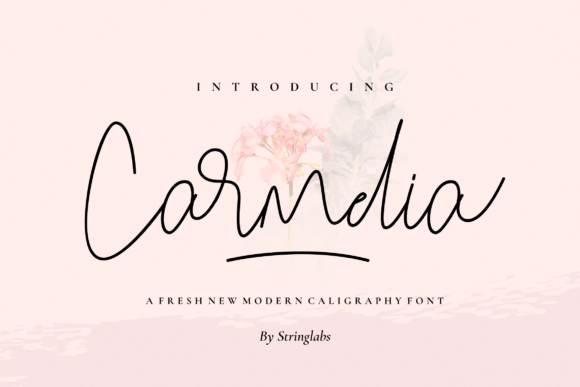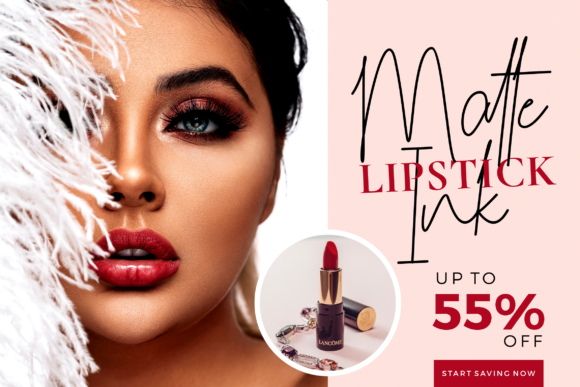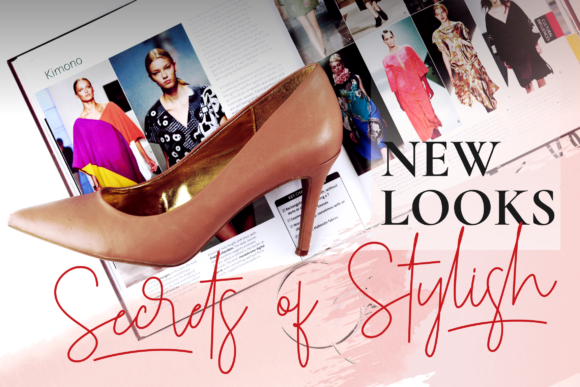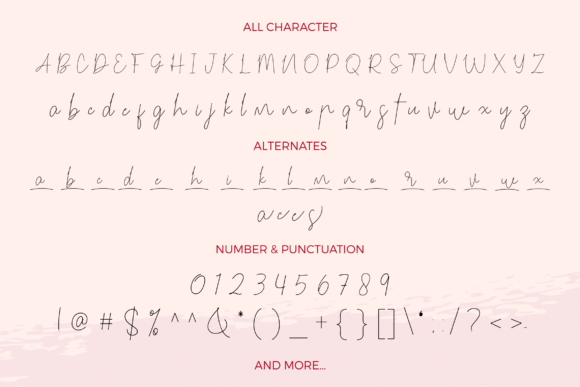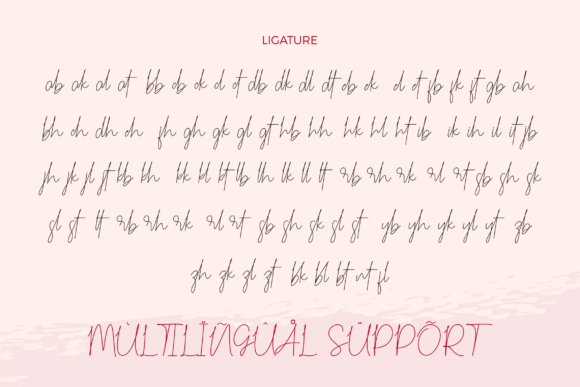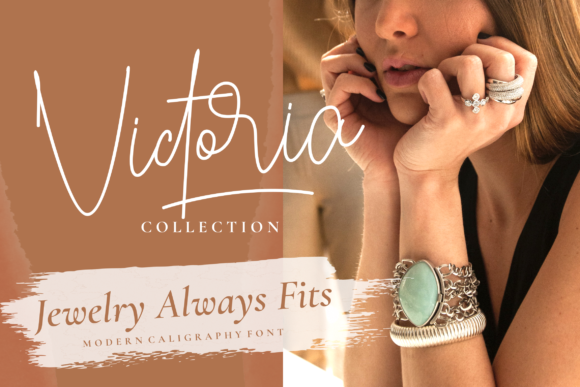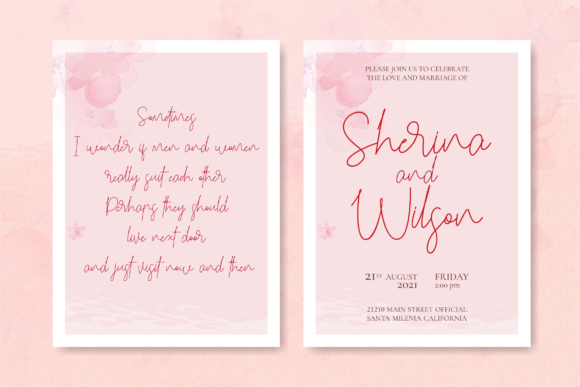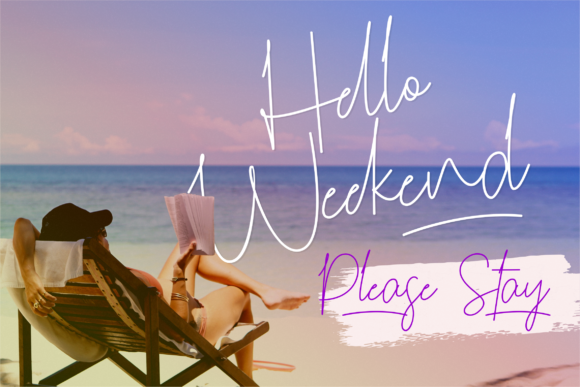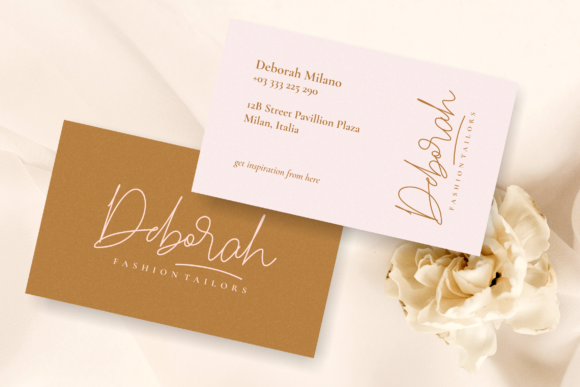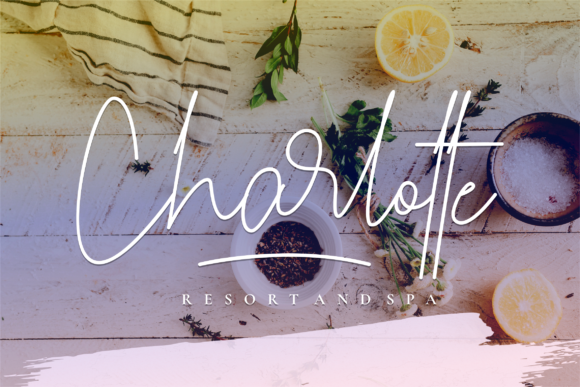
HomeScript FontsCarmelia Font Script Fonts Carmelia Font FacebookXPinterestWhatsApp Carmelia Font Poster 2 Carmelia Font Poster 3 Carmelia Font Poster 4 Carmelia Font Poster 5 Carmelia Font Poster 6 Carmelia Font Poster 7 Carmelia Font Poster 8 Carmelia Font Poster 9 Carmelia Font Poster 10 Carmelia Font Poster 11 Carmelia Font Poster 12 Carmelia Font Poster 13 Carmelia Font Poster 14 Carmelia Font Poster 15 About Carmelia Font Carmelia is a gorgeous script with a unique style. Fall in love with its modern approach to design! DOWNLOAD ON CREATIVE FABRICAThis font is sold and delivered by Creative Fabrica. Font Canyon may earn a commission if you buy through this link. People also explored Lucky Boys Font Calligraphia Latina Font Ruthfully Font Cappadocia Font Mocha Frappuccino Font Split Rose Flower Monogram Font Justine Garden Font Coconut Tree Font Agellia Benitta Font 376 0 TagsCarmelia Font Previous articleGalgadot FontNext articleGrouper Monster Font LEAVE A REPLY Cancel reply Comment: Please enter your comment! Name:* Please enter your name here Email:* You have entered an incorrect email address! Please enter your email address here Website: Save my name, email, and website in this browser for the next time I comment. Personal Use Free Autumn Flowers Font Personal Use Free Read more about this font Fake Receipt Personal Use Free Read more about this font Peristiwa Font Personal Use Free Read more about this font Glosery Personal Use Free Read more about this font BLOG The 10 Best Handwriting Fonts to Add Personality to Your Designs 10 of the Best Handwriting Fonts for Adding Personality to Your Designs There will undoubtedly be no other better choice than handwriting fonts to give... Modern Sans-Serif Fonts That Brands Love in 2025 Free vs Paid Fonts: Why Investing in Premium Fonts Is Worth It How to Cut Any Font on Cricut: Convert a Font to SVG (Free)